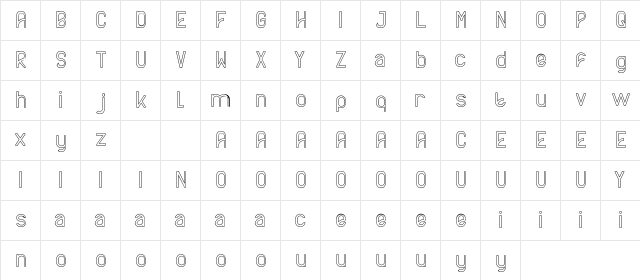
AXTON DEMO Stroke Regular Font Preview
AXTON DEMO Stroke Regular
AXTON DEMO Stroke Regular Font Details
| Foundry | Edric Studio |
| Designer | Renata |
Design Context for AXTON DEMO Stroke Typeface
AXTON DEMO Stroke offers clean, dependable letterforms without strong stylistic allegiance, making it a practical choice for designers who need flexibility.